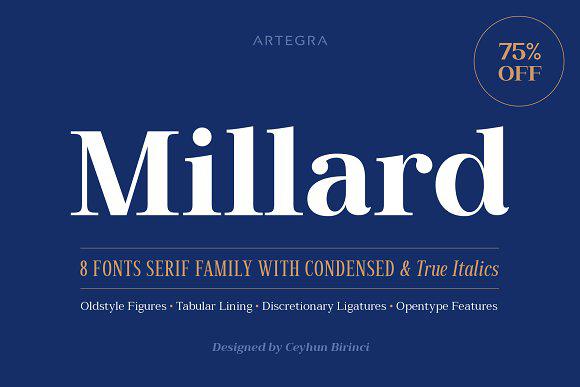
Here is a list of the top 30 most used and popular serif fonts that you should check out.
Serif fonts best. One has to choose that font that fits hisher brand perfectly and is easily readable for the users. You can easily recognize serif fonts since they have a small line attached to each letter at the end of the stroke. Full of contrast lines and with plenty of stylistic alternates its just the thing for retro looking headlines with a bit of a 1970s feel and its free for personal use while a commercial licence is available for 14. Devant pro modern sans serif font.
Serif actually makes letters more recognizable and distinctand this makes the text easier to read. Ace sans is a complete family of sans. Weve gathered more than 100 o. To finish our round up of 2019s best free serif fonts heres afterglow a modern and classic serif typeface by vintage voyage.
Its time to delve into a collection of the best beautiful modern serif fonts. Serif fonts are ideal for printed literature detailed typography or for creating a more formal effect. Ace sans sans serif font family. Serif typefaces tend to be thought of as classic and traditional whereas sans serif typefaces are thought of as more modern and contemporary.
A wedge serif type font blacker was designed to be a take on the evil serif typeface genre. Looking for the best serif font collection for your text contents. Droid serif pro this font is beautiful serif font collection specifically design for clear and comfortable on screen reading. We have made a list of best serif fonts that will help you redesign your text or material.
The high contrast sharp wedge serif design was created by cosimo lorenzo pancini and andrea tartarelli who were looking to evoke the proportions of fonts used in the 1970s. You can use these fonts on personal and commercial based projects. And these popular serif fonts really stand out from the crowd. So whether youre looking for a serif script or sans serif font todays collection of the best free fonts for designers has you covered.
The tall and narrow design of this font makes it one of the best fonts you can use to craft bold titles and headings for all kinds of print and digital designs. Designers have an incredible choice of free fonts to choose from. Download the best free 280 serif fonts from the various sources of internet. It has 4 font weights available namely.
The fine details of serifs especially the more delicate and high contrast designs dont always display well on screens especially at small sizes on low resolution displays. Were amazed at the number and quality of free fonts available today.